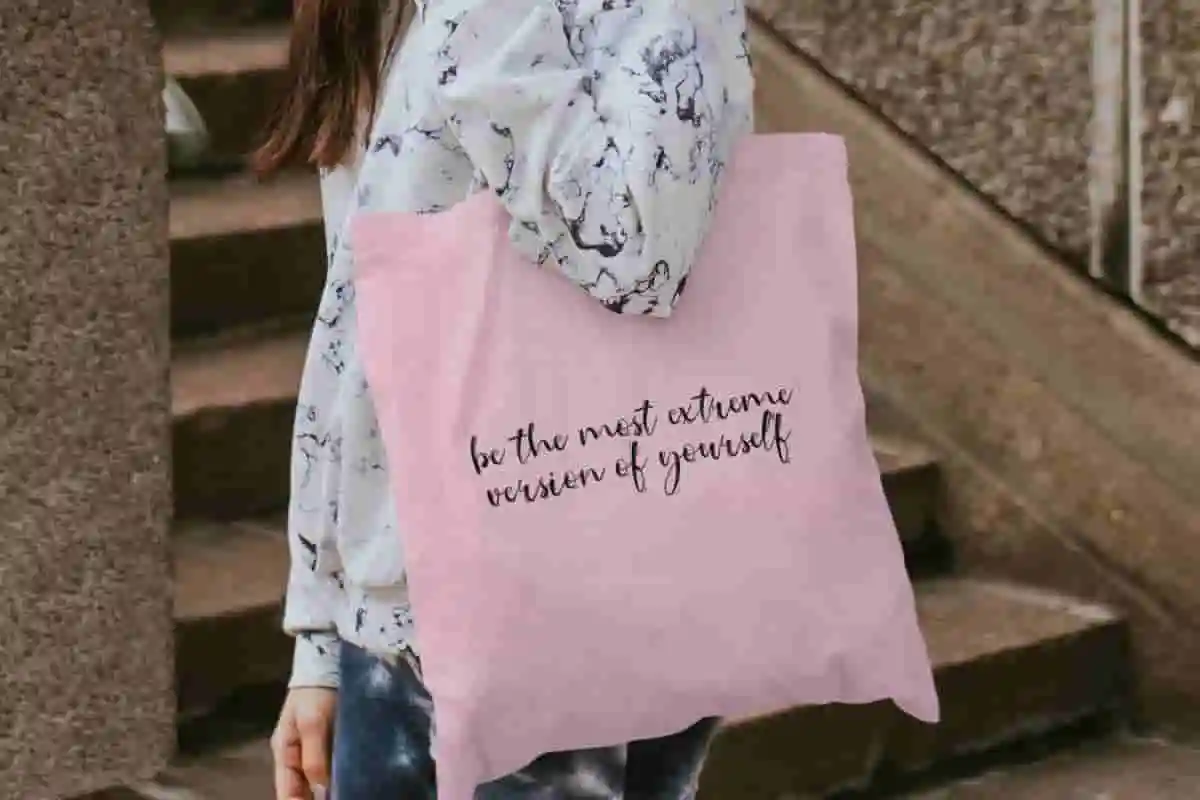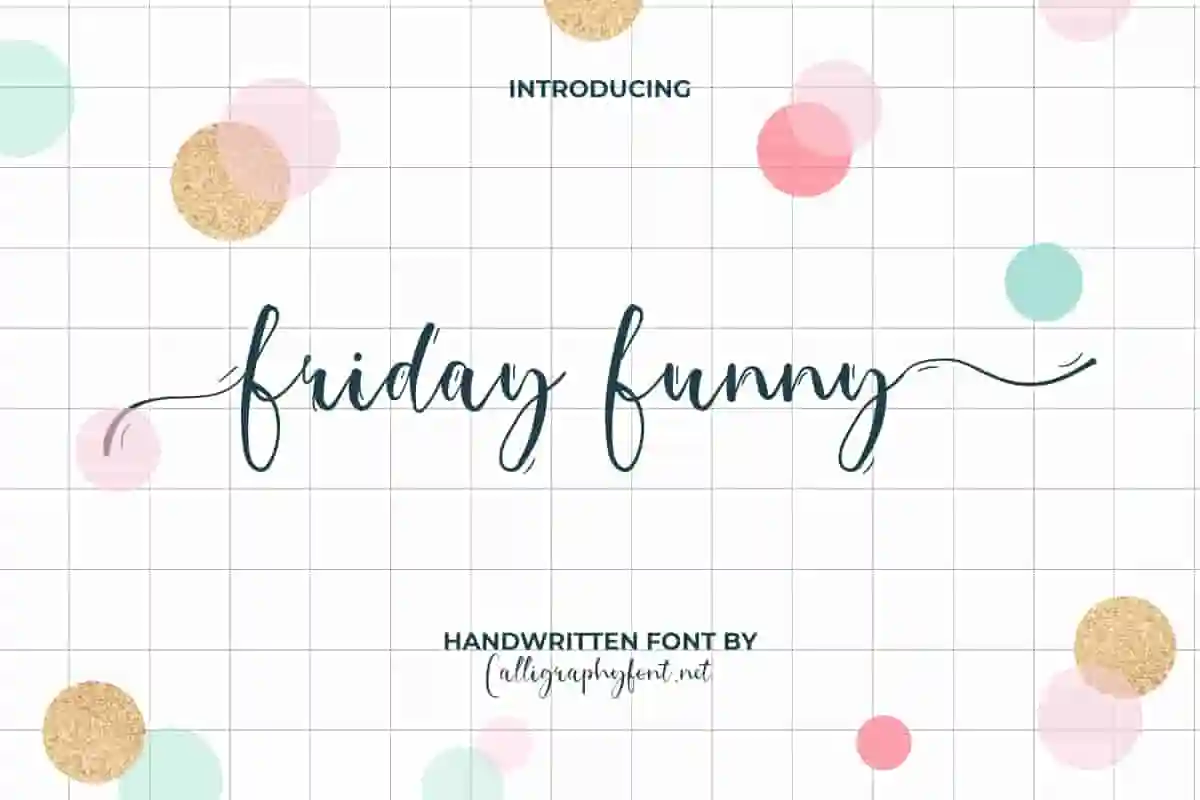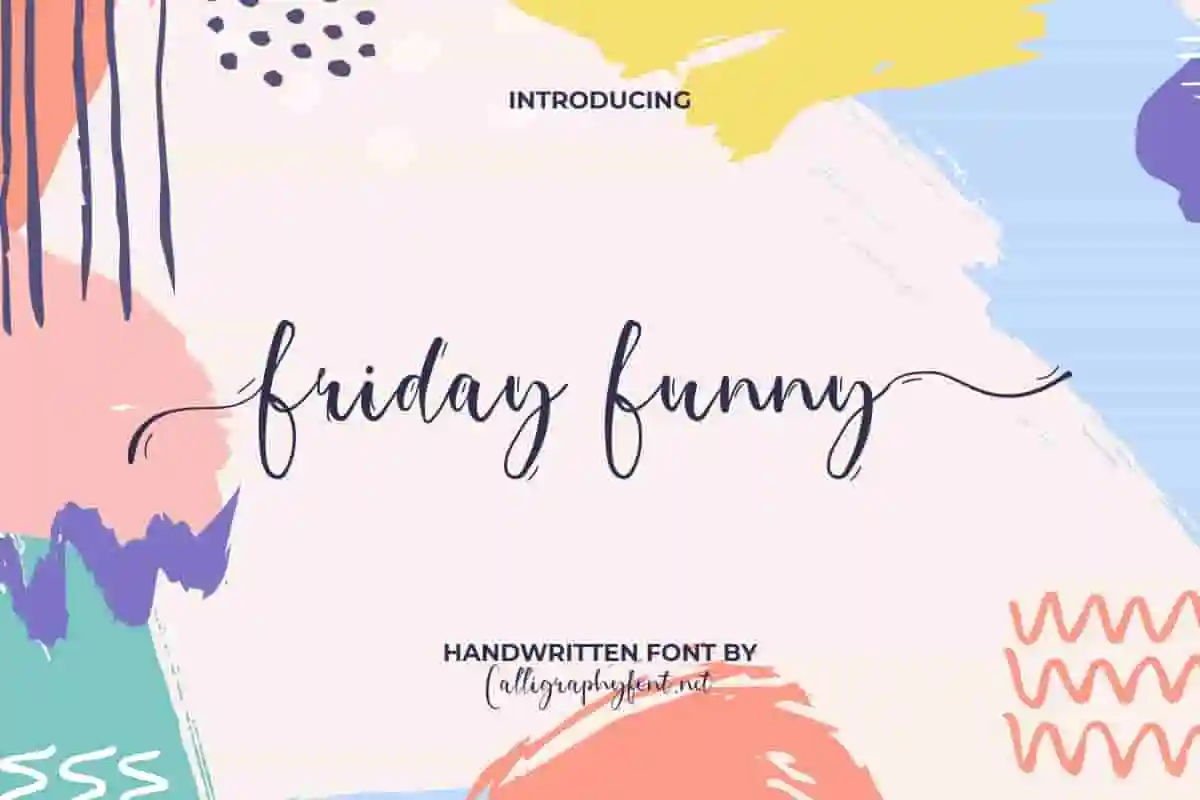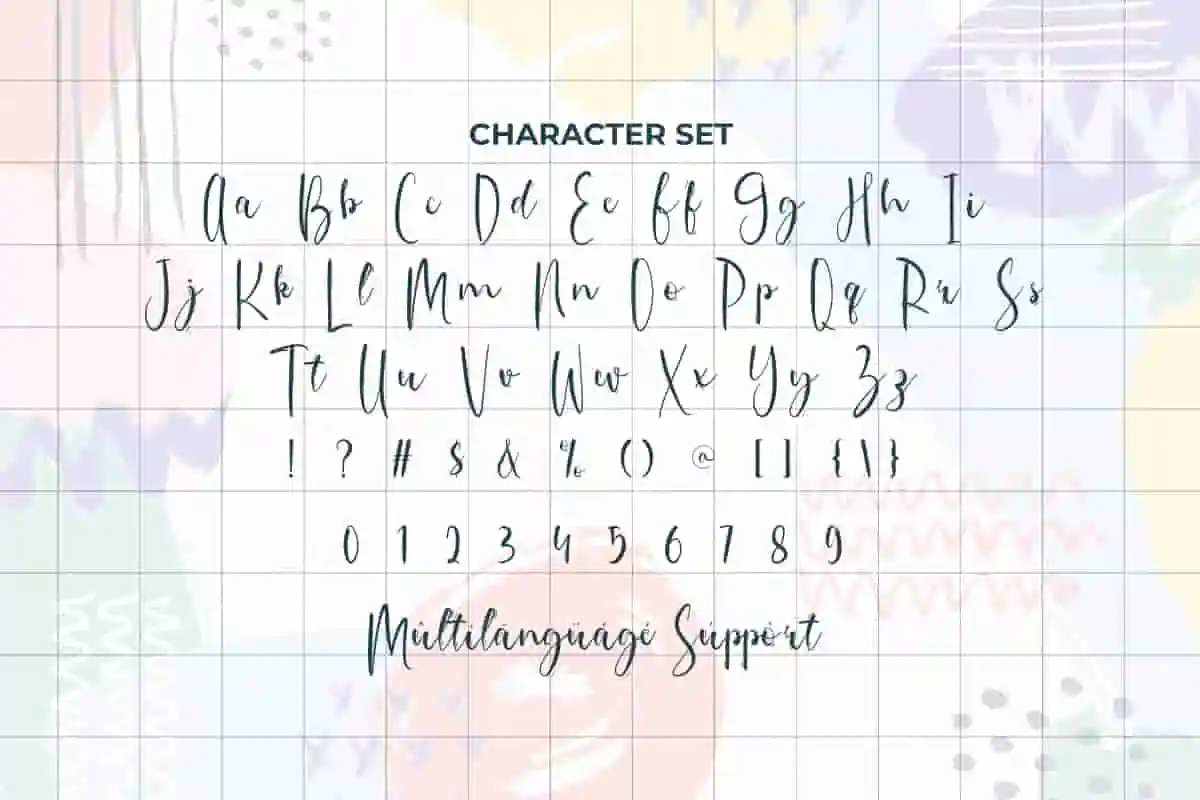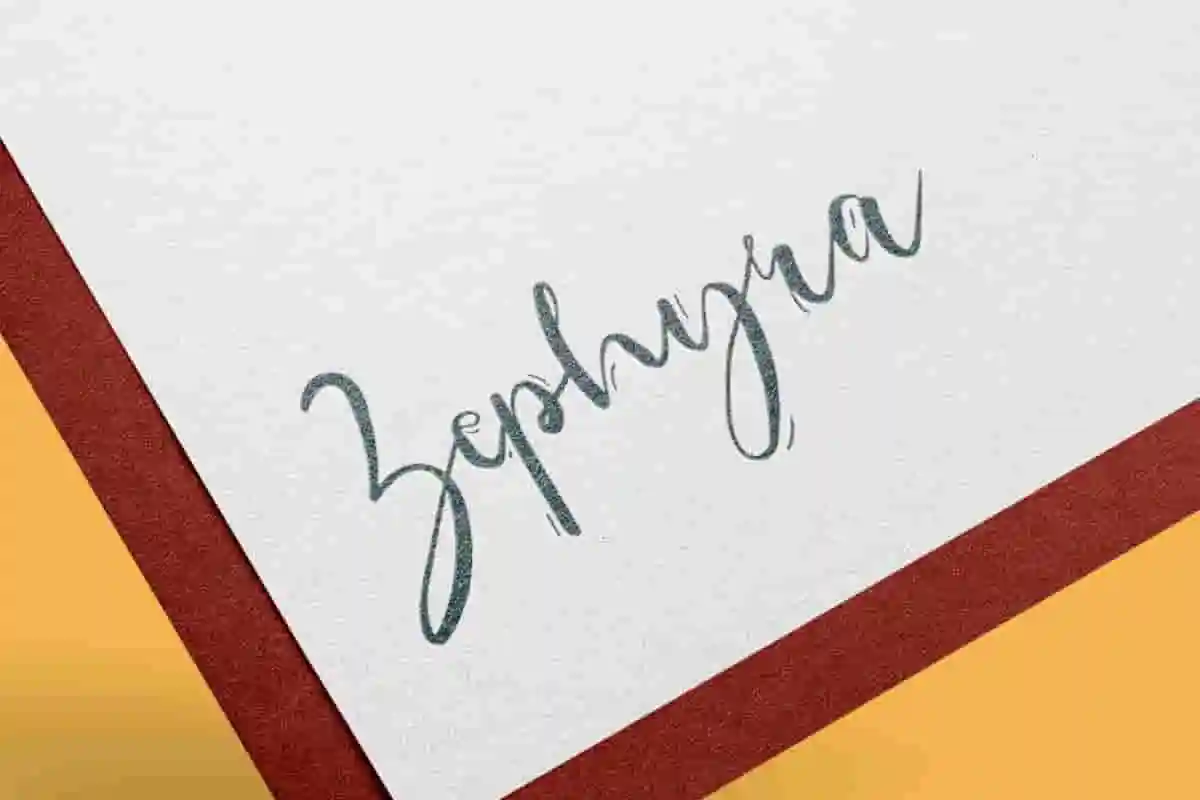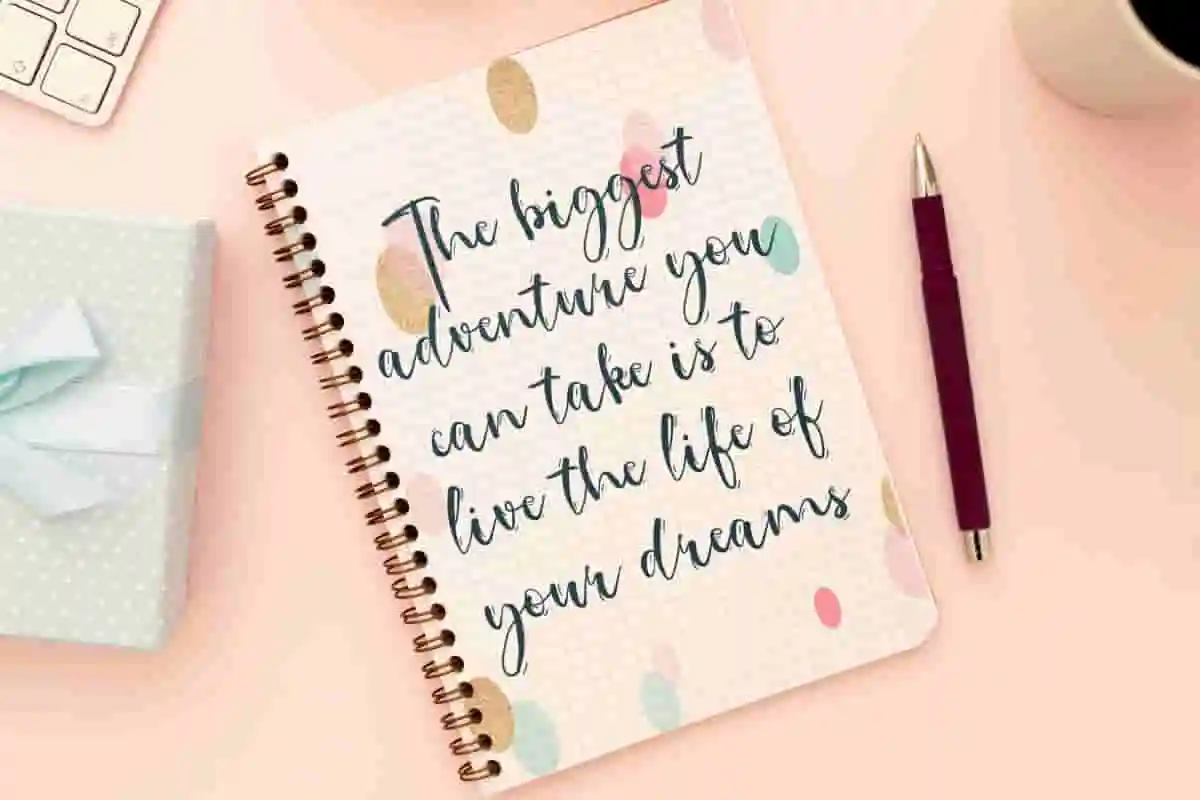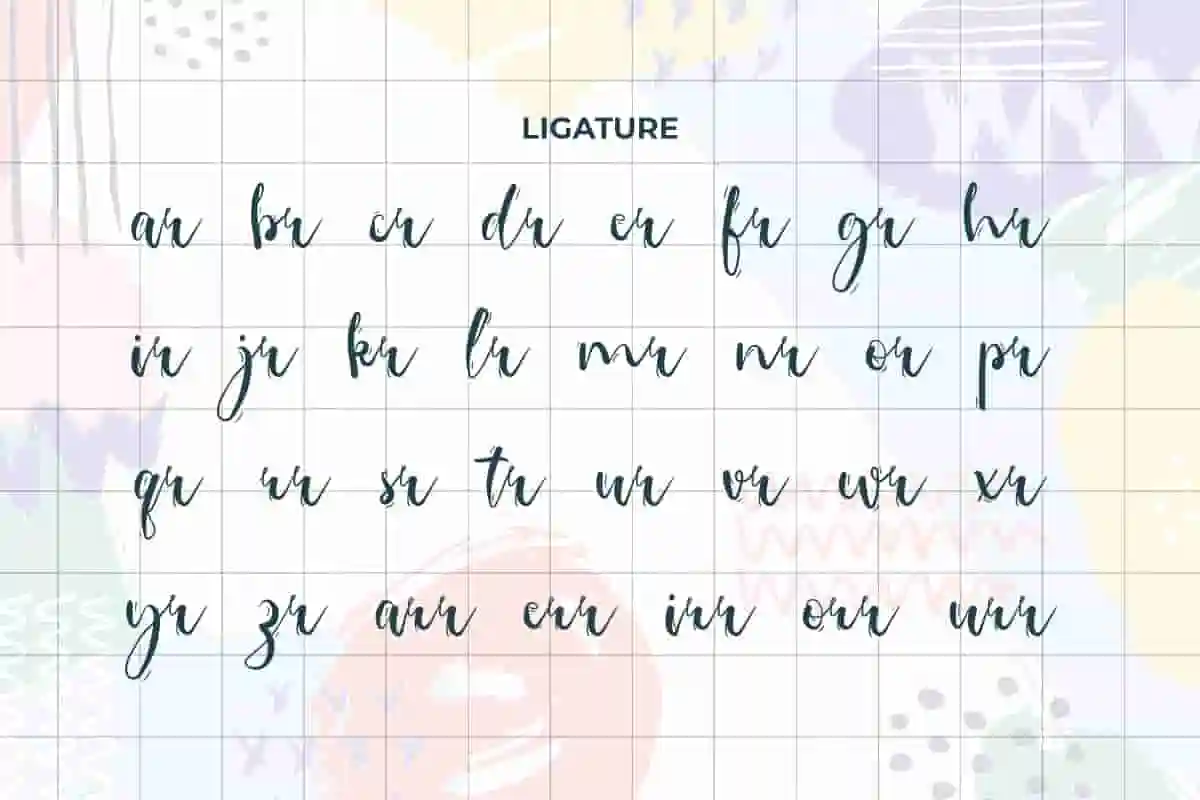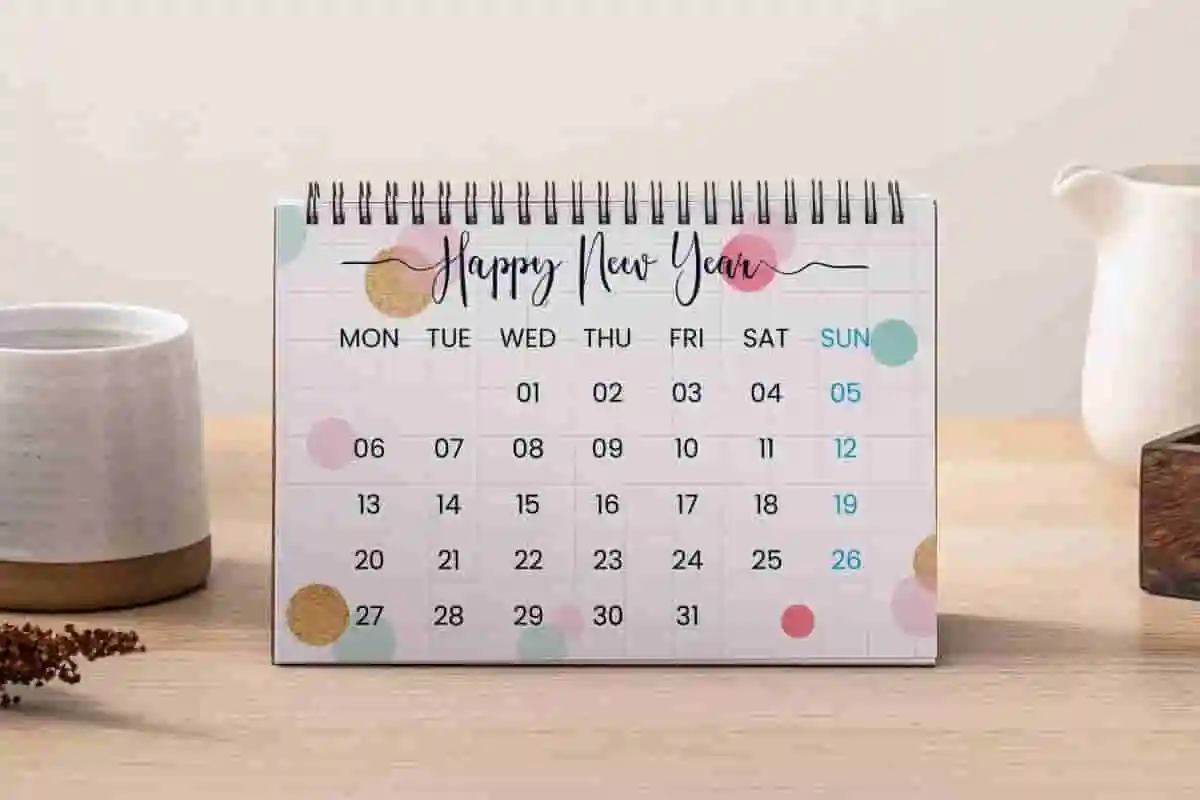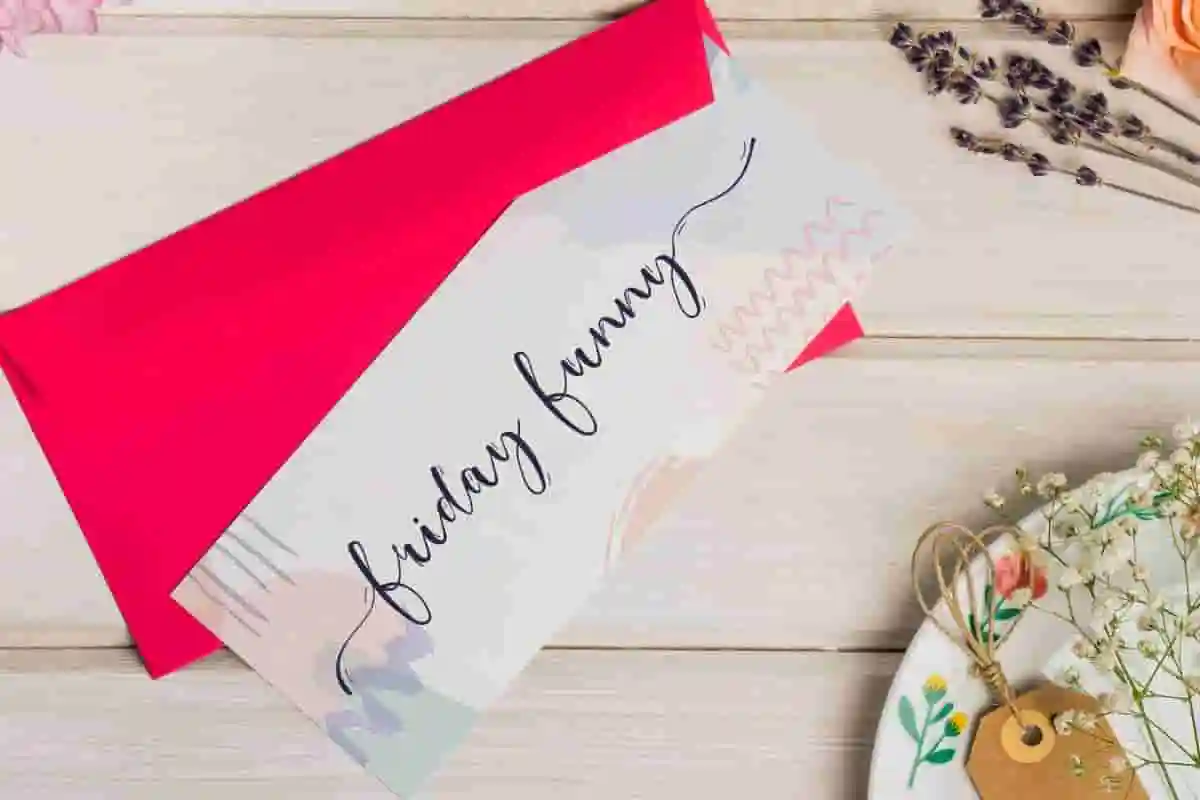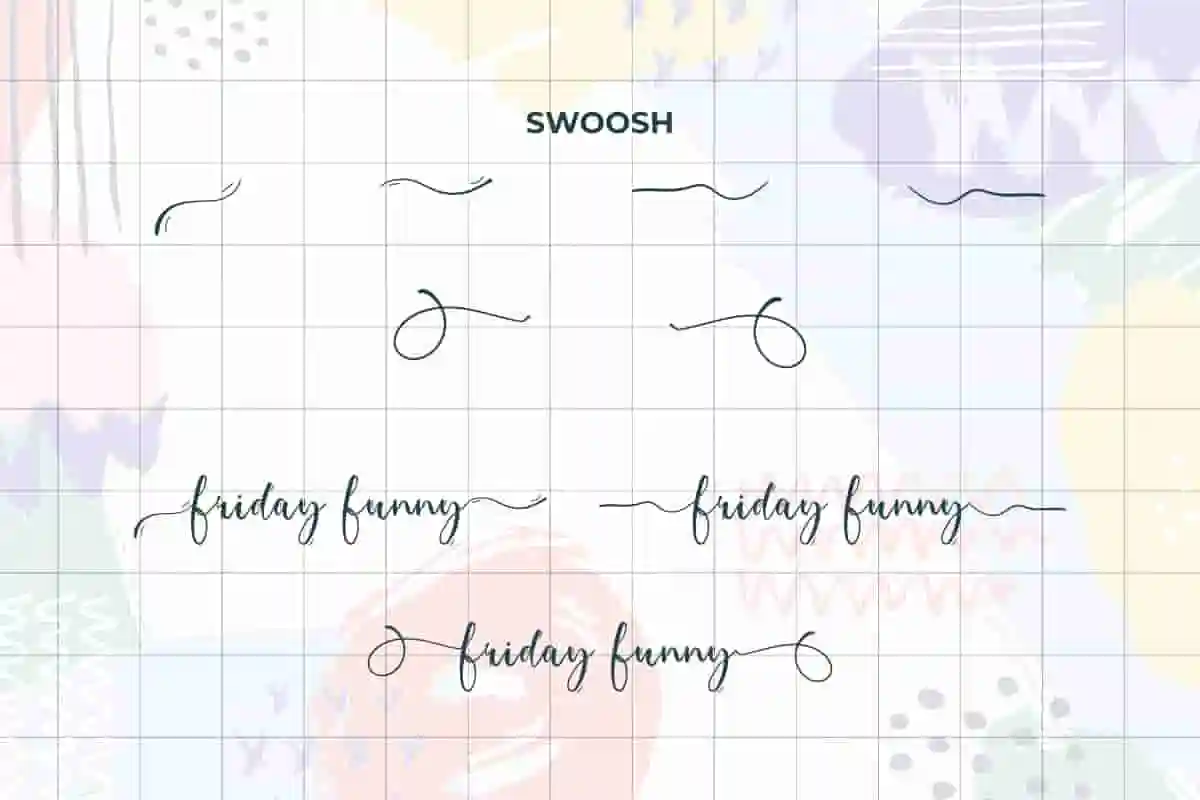
Friday Funny Font
Friday Funny Font is a beautiful shadowed calligraphic font with a handwritten cute style and adorable decoration on its letters. It will provide you a variety of lovely letters for any work design you create!
Friday Funny Font is a beautiful shadowed calligraphic font with a cute style and chic decoration on its letters. It will be good to perfect any project design, such as brand image, brochure, cover, custom design, flyer, invitation, label, menu, poster, screen print, signage, sticker, thank you card, title, website, and many more!
The style that Friday Funny Font has will looks adorable and be used by many industries, such as advertising, beauty product, content creator, fashion, kids stuff, food and beverages, graphic design, handicraft, homeware, interior design, printing, publishing, restaurant, wedding organizer, etc.
Friday Funny Font comes with a full set of Uppercase and Lowercase Basic Characters, Number, a large range of Punctuation, Symbol, Ligature, and Swoosh. It also comes with multilingual character support. Ready to use both on Windows machine or Mac with simple installations. It’s tested to work well in the Adobe Apps (Illustrator, Adobe InDesign, Adobe Photoshop) CorelDraw, and others. PUA Encode Characters means you can access all the characters easily – Fully accessible without additional design software.